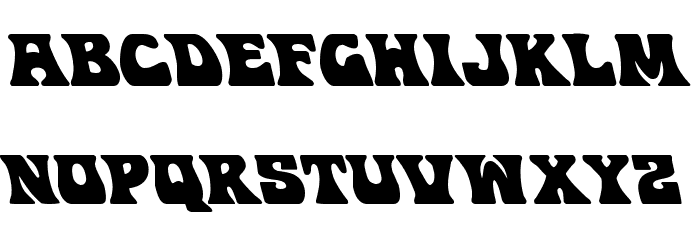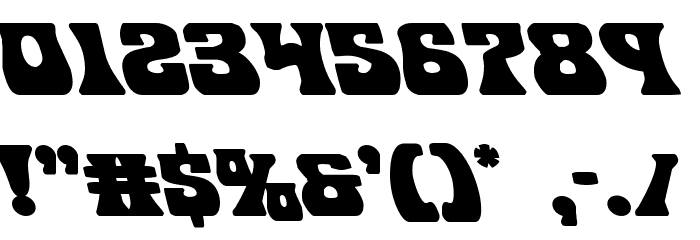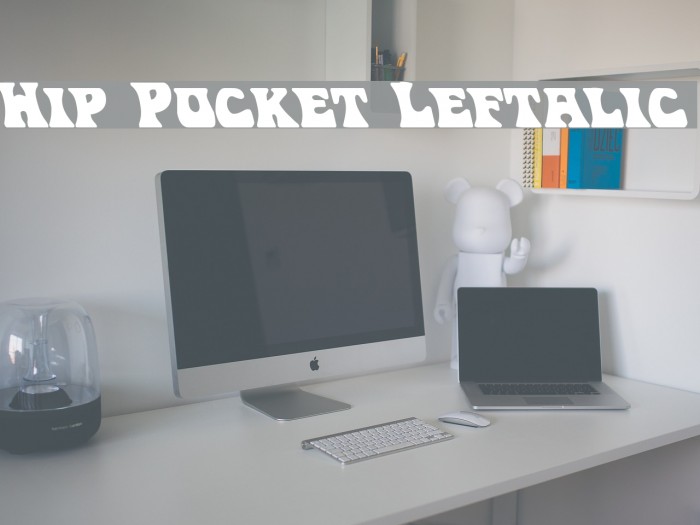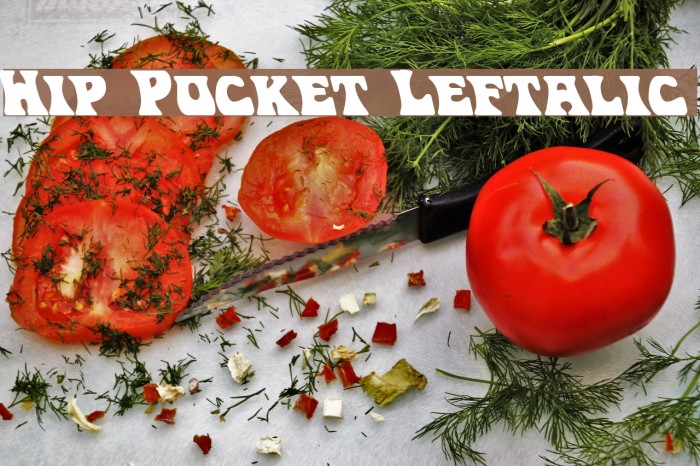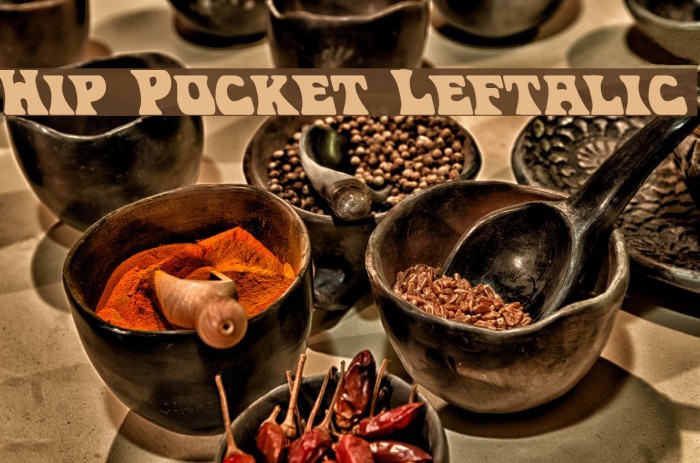
Hip Pocket Leftalic Font
This font features a bold and playful design with exaggerated, chunky letterforms that create a sense of movement and energy. The characters have a distinct, heavy weight with wide strokes and minimal contrast, giving them a strong presence on the page. The style is reminiscent of retro or vintage aesthetics, making it ideal for projects that require a fun and eye-catching look. The uppercase and lowercase letters maintain a consistent style, while the numbers and special characters complement the overall design with their bold and dynamic shapes.
A bold, playful font with chunky, exaggerated letterforms and a retro vibe.
- Proposed Projects: Ideal for posters, logos, and branding projects that aim to capture attention with a fun and energetic style.
- Overall Style: Vintage